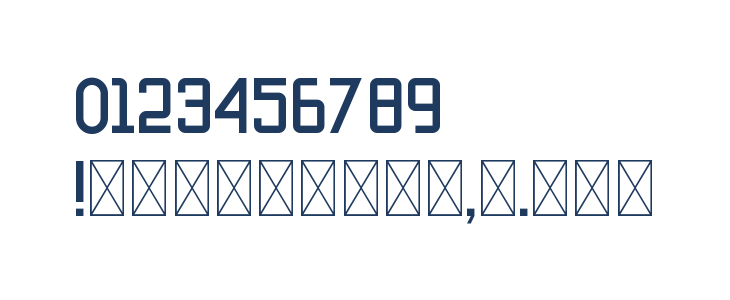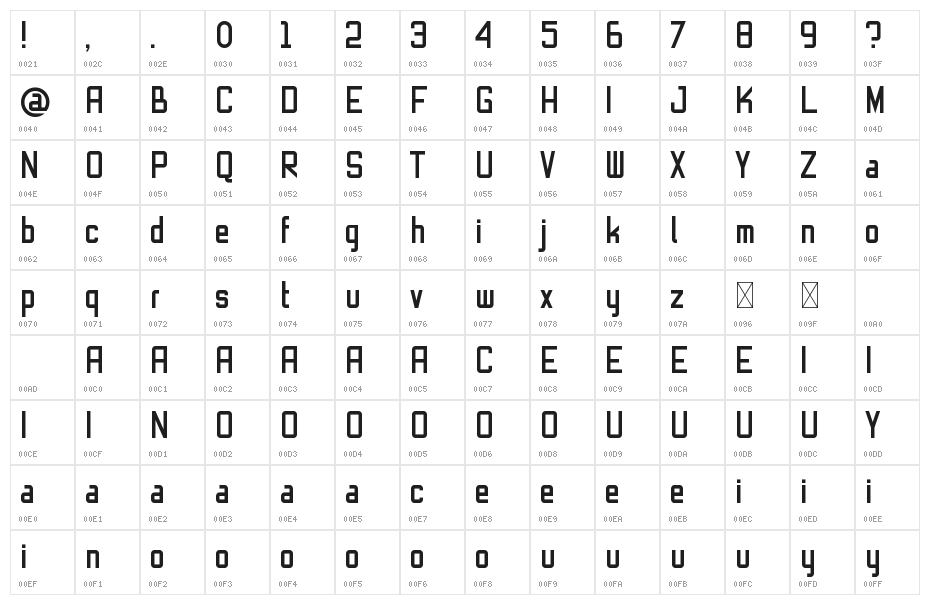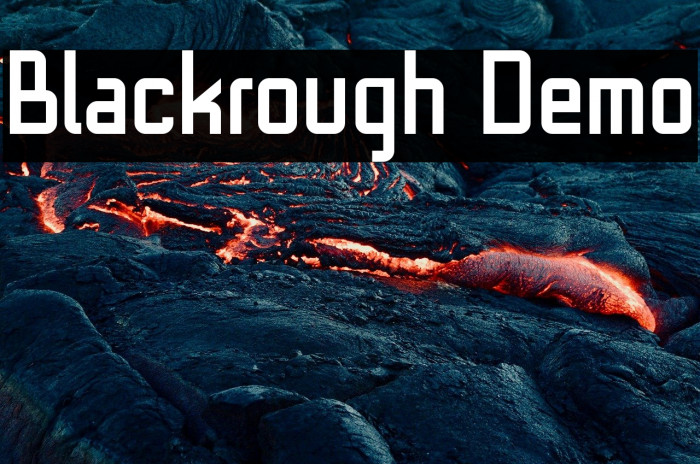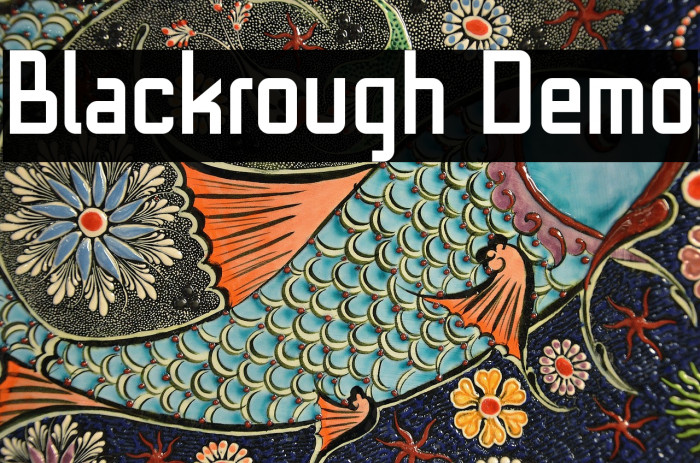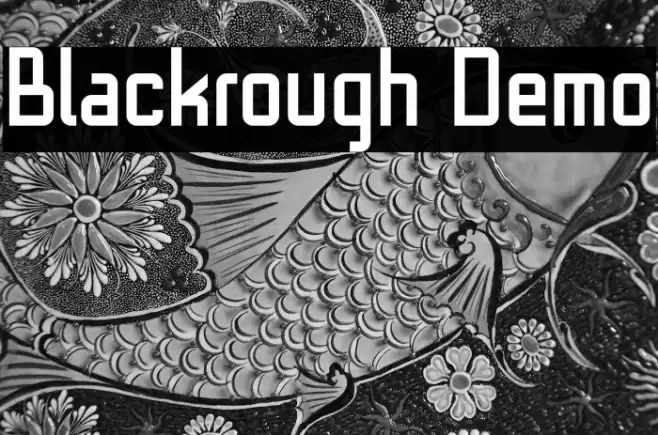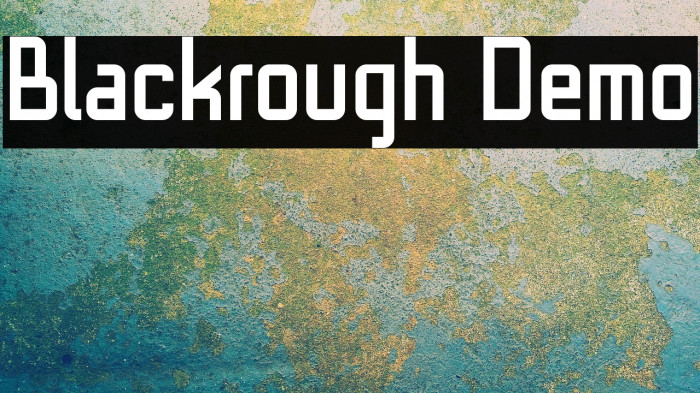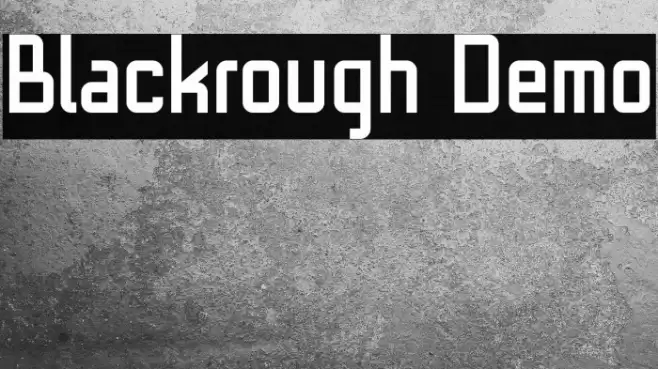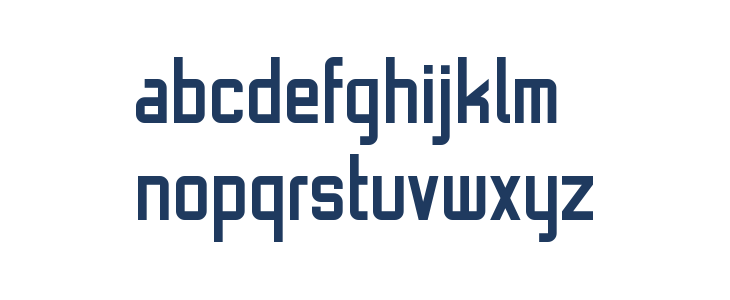
Blackrough Demo Font
Blackrough Demo Description
This font features a bold, geometric design with a modern aesthetic. The characters are constructed with clean, straight lines and sharp angles, giving it a strong and assertive appearance. The uppercase letters are uniform in height, while the lowercase letters maintain a consistent style that complements the uppercase. The numerals are equally bold and geometric, ensuring readability and visual impact. The special characters are designed to match the overall style, making them cohesive with the rest of the font. This font's design is ideal for making a statement, with its clear and impactful presence.